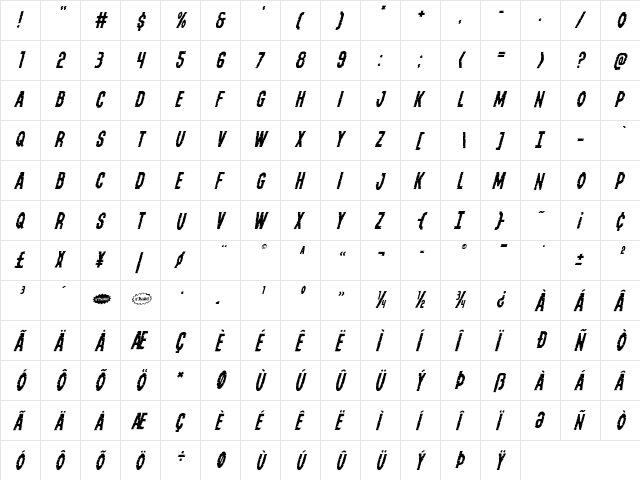
Yummy Mummy Staggered Italic Italic
Design Context for Yummy Mummy Staggered Italic Typeface
Yummy Mummy Staggered Italic takes a measured approach to typography — its balanced proportions and neutral character make it a reliable workhorse for both digital and print work. The slanted form adds forward momentum and visual energy.
Pro Tip: Try Yummy Mummy Staggered Italic for annotation and caption copy alongside an upright companion — the contrast in angle creates a dynamic but ordered typographic system.